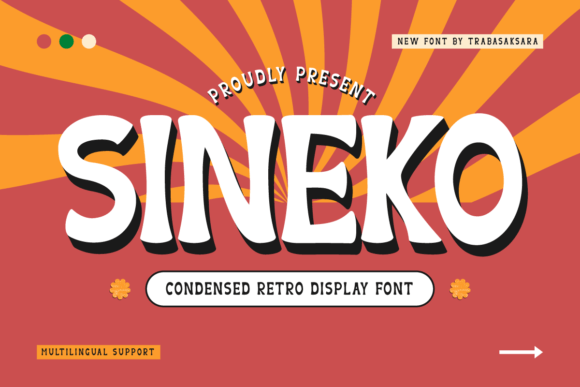
Prepare yourself to be enthralled by Sineko, a display font crafted to capture hearts and turn designs into masterpieces. A symphony of bold and playful letterforms, unique curves and swashes, and a diverse range of weights and styles awaits you in this typographic treasure. Regardless of your creative vision, Sineko's versatility is bound to ignite your imagination and transform your designs into captivating works of art.
Are you working on a branding identity that demands distinction? Sineko's individuality will make your brand shine, leaving an indelible mark on the minds of your audience. Picture your logo, business cards, and marketing materials adorned with Sineko's captivating presence, captivating attention and driving success.
Unleash your creativity and envision the possibilities for posters, invitations, and social media graphics. Sineko's magnetic charm will draw eyes and captivate hearts, making your designs the talk of the town. Let your imagination soar as you craft designs that ooze style and sophistication, leaving a lasting impression on all who behold them.
But Sineko's allure extends beyond aesthetics. Its highly legible characters make it a joy to read, ensuring that your messages are conveyed with clarity and impact. Combine readability with visual delight, and you have a font that captivates and informs, leaving no reader indifferent.
With Sineko at your creative disposal, designing becomes an exhilarating journey. So, dive into the world of Sineko and let your imagination run wild. Create designs that resonate with your audience, designs that leave a lasting impression, designs that tell a story. Sineko is your gateway to a world of creative possibilities, where every design is a masterpiece.